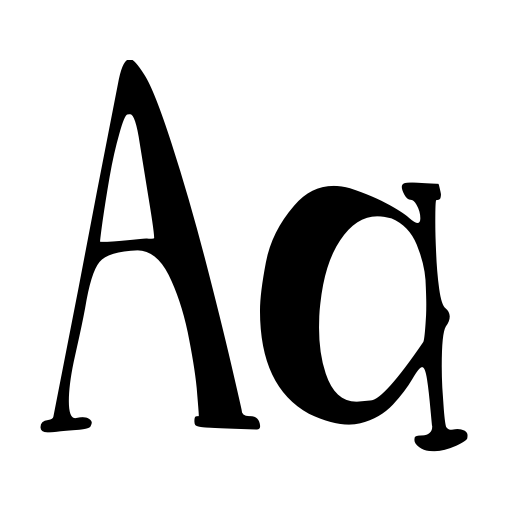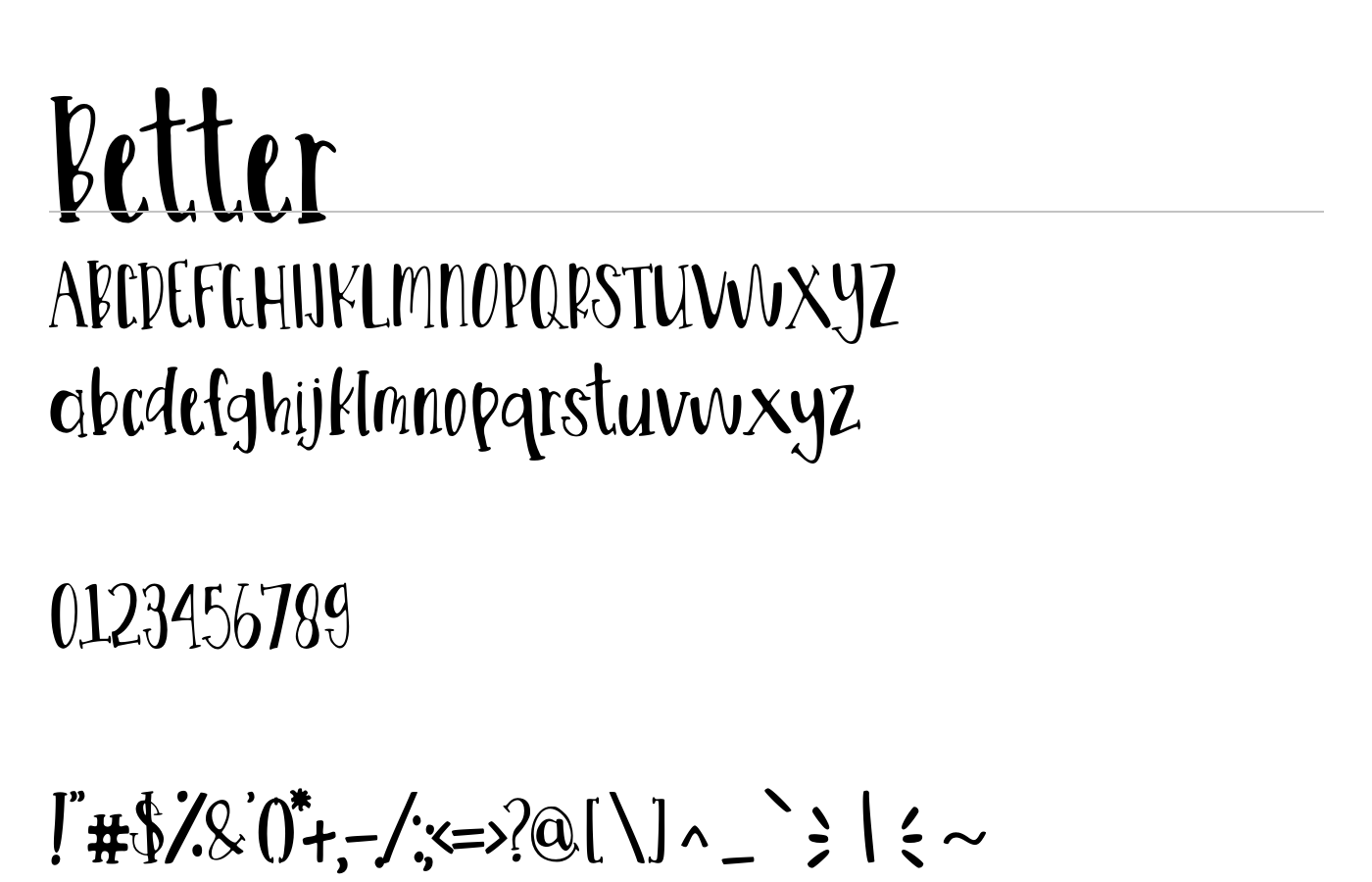
Better Font is a playful, handwritten serif typeface with a quirky, irregular style that brings a casual and creative charm to any design. Its tall, narrow letterforms and varied stroke widths give it a lively, personal feel, making it perfect for informal branding, fun posters, and eye-catching headings where a unique, friendly voice is desired. This font works well in designs that want to stand out with character and individuality rather than strict professionalism.
Better Font